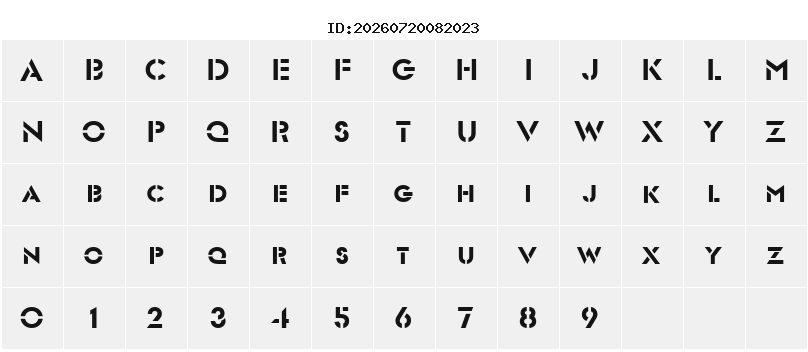
About FuturistStencil.ttf
FuturistStencil.ttf is a modern, elegant sans-serif font designed for ultimate readability and visual harmony. Perfect for branding, headlines, web design, and print materials.